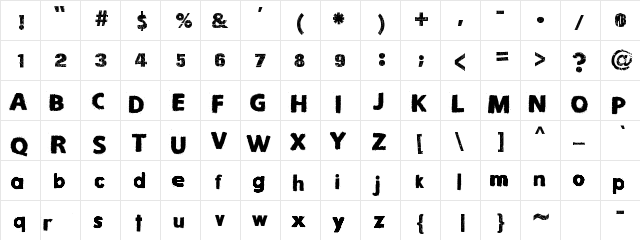
Snow Times Regular
Design Context for Snow Times Typeface
Snow Times is a composed and adaptable typeface that performs quietly and consistently across a wide range of design contexts.
Pro Tip: Pair Snow Times with a font of contrasting weight or personality to build a more expressive typographic hierarchy.